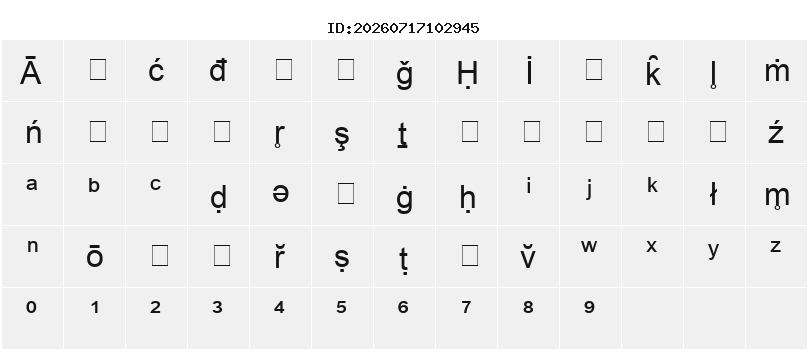
About Bookshelf Symbol 1.ttf
Bookshelf Symbol 1.ttf is a modern, elegant sans-serif font designed for ultimate readability and visual harmony. Perfect for branding, headlines, web design, and print materials.